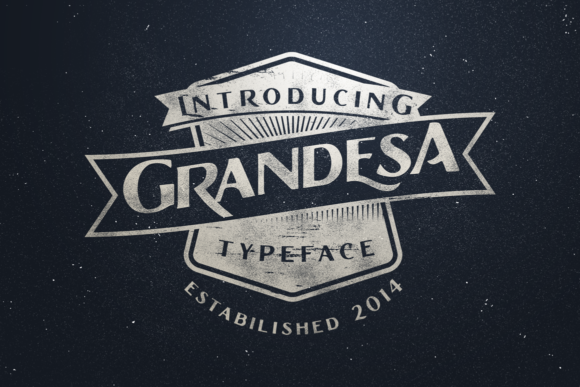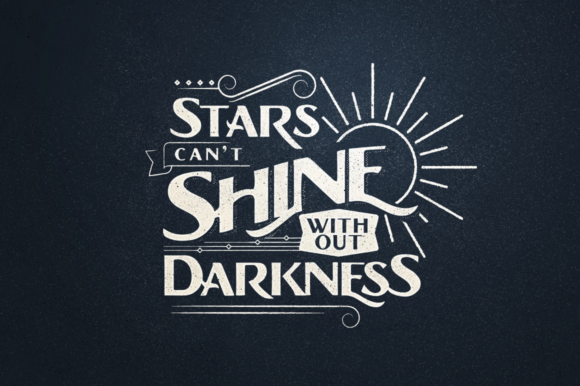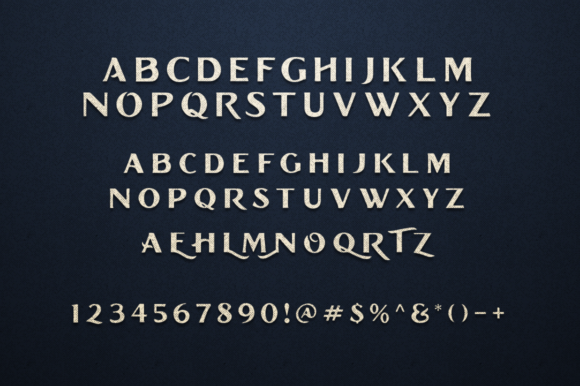
The Perfect Brushstroke for Your Next Design Project
Have you ever been stuck trying to convey the perfect message through your designs, only to find that the right words just aren’t enough? The perfect combination of typography and creativity can elevate your work from ordinary to extraordinary. That’s where the Grandesa Font comes in – a stunning, handcrafted serif font designed specifically for displays and headlines.
With its classic feel and added vector files, the Grandesa Font is the ultimate tool for designers looking to create eye-catching, hand-lettered projects in no time. Whether you’re working on a branding project or a creative campaign, this font is sure to add that extra oomph to your designs.
Grandesa Font Key Features
- Unique Characteristics: Grandesa Font features a unique blend of Art Deco and Modernist styles, with intricate details and geometric patterns.
- Font Weight: Grandesa Font is available in regular, bold, and italic weights, offering versatility for various design applications.
Designer Review: Grandesa Font
As a designer, I was excited to try out the Grandesa Font and see if it lived up to its promises. Here’s my honest review:
- The Grandesa Font has a unique, elegant feel to it that makes it perfect for luxury and high-end branding.
- The font is highly customizable, with a wide range of weights and styles to choose from.
- It’s highly legible, even at small font sizes, making it perfect for body text.
- The Grandesa Font may not be the best choice for digital products, as it can be a bit too ornate for some screens.
- It may require some additional styling to make it work well in smaller spaces, such as on mobile devices.
- The font can be a bit too bold for some designs, so be sure to use it judiciously.
The Grandesa Font is a beautiful, high-end font that’s perfect for luxury branding and print materials. While it may have some limitations, it’s definitely worth considering for your next design project. Just be sure to use it thoughtfully and pair it with other design elements that complement its unique style.
For optimal results, use Grandesa Font in headings and titles to create a bold, elegant look.
It’s ideal for use in wedding invitations, branding materials, and other creative projects where a sophisticated feel is desired.
Alternatives to Grandesa Font
Playfair Display is a luxurious, elegant serif font perfect for creating high-end and sophisticated designs. It features a classic feel with intricate details and is ideal for use in magazine titles, headings, and luxury branding. When to use: For high-end fashion, luxury, and sophisticated designs.
Comparison: Grandesa Font is more modern and sans-serif, while Playfair Display is classic and serif. If you’re looking for a more traditional, elegant feel, Playfair Display is a great alternative.
Montserrat is a modern sans-serif font that’s perfect for urban and minimalist designs. It features clean lines and geometric shapes, making it ideal for use in digital products, mobile apps, and urban branding. When to use: For modern, urban, and minimalist designs.
Comparison: Grandesa Font is more decorative and has a vintage feel, while Montserrat is clean and modern. If you’re looking for a more modern and minimalist feel, Montserrat is a great alternative.
Great Vibes is a modern, elegant script font perfect for creating eye-catching and attention-grabbing designs. It features a flowing, handwritten feel and is ideal for use in branding, logos, and marketing materials. When to use: For creative, artistic, and attention-grabbing designs.
Comparison: Grandesa Font is more decorative and has a vintage feel, while Great Vibes is modern and script-based. If you’re looking for a more modern and creative feel, Great Vibes is a great alternative.